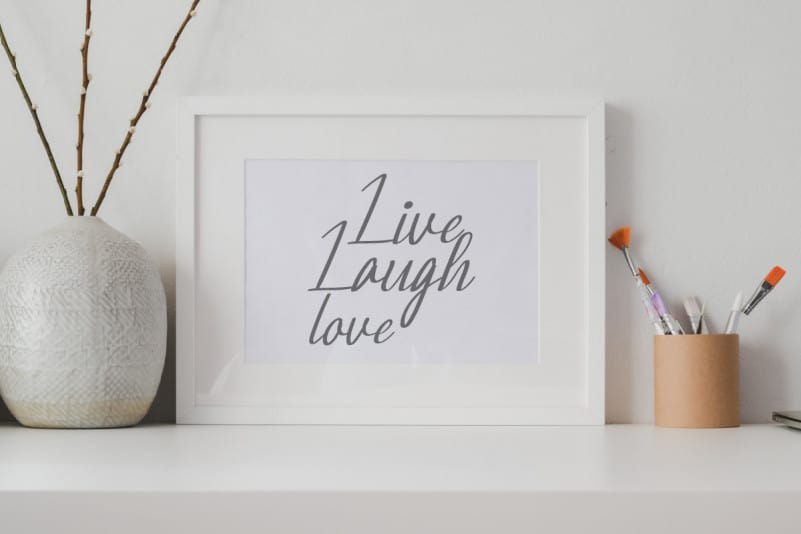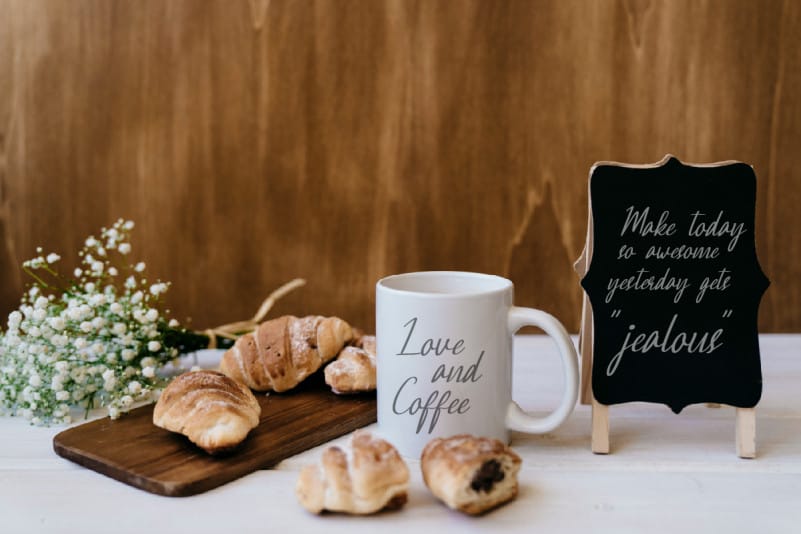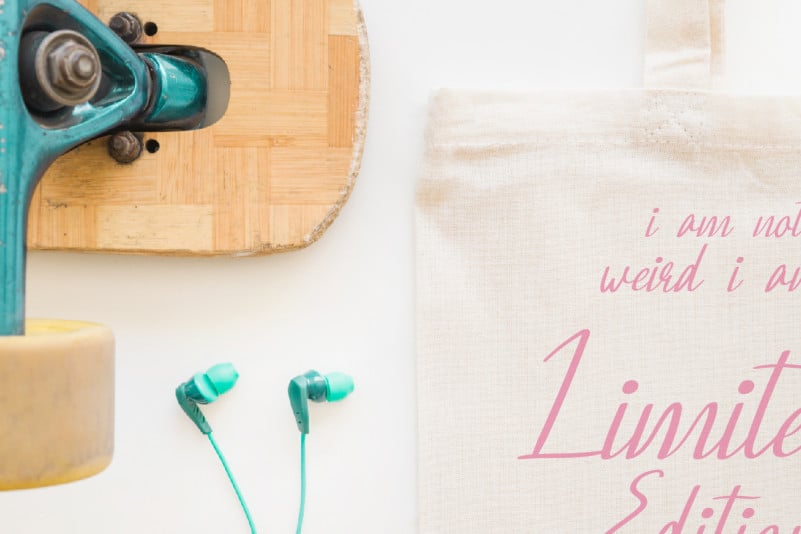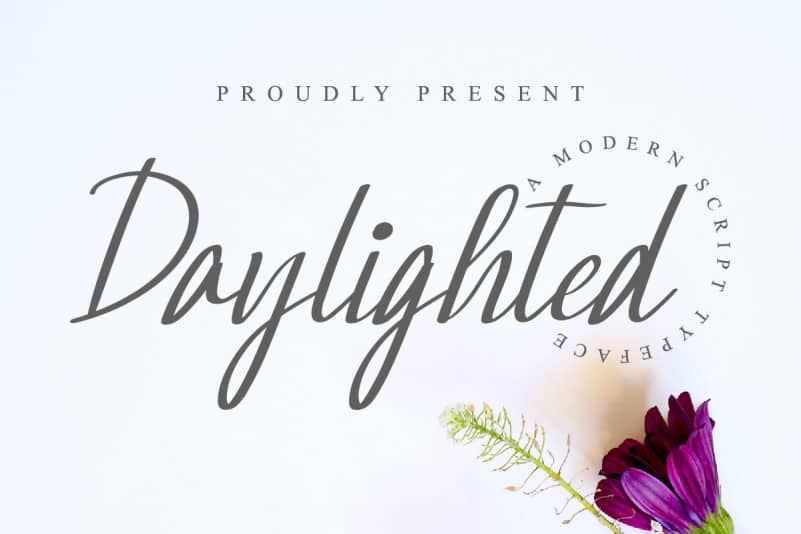
Daylighted Calligraphy Font
Daylighted Calligraphy Font is a Calligraphy script font. The style of this font are elegant, luxury, glamour and classic brush pen.